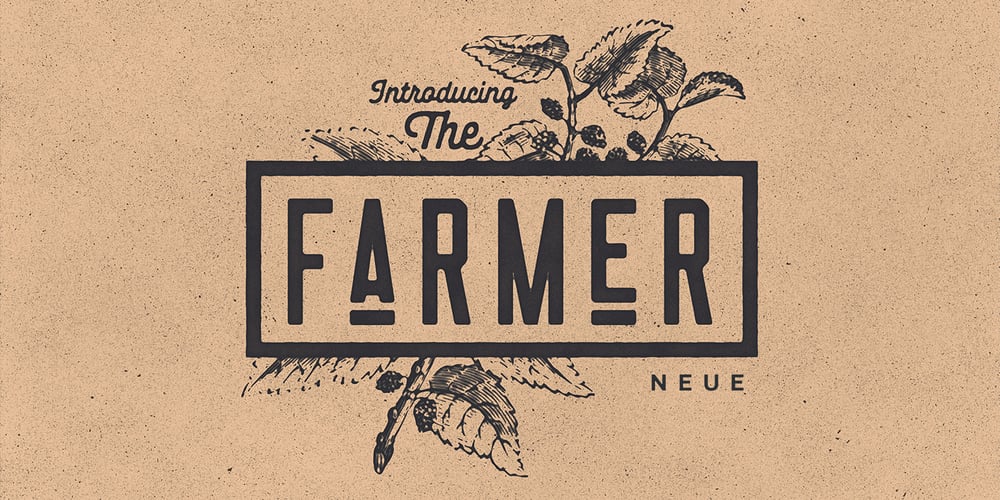
Neue Farmero Font Family was designed by Kurt Harahap and published by Kaligra.co. Neue Farmero contains 3 styles and family package options. Neue Farmero is an ultra condensed Type Family that includes 3 styles: Regular, Rounded & Vintage versions. This family is an All-Caps family with each version contains alternates. With 3 styles and iconic alternates, Neue Farmero can give a diverse set of aesthetics. With light giving a much more simple modern vintage look, fashionable feel and the bold giving a more rugged vibe for Simple Coffee shop logo, Brewing Company logo.